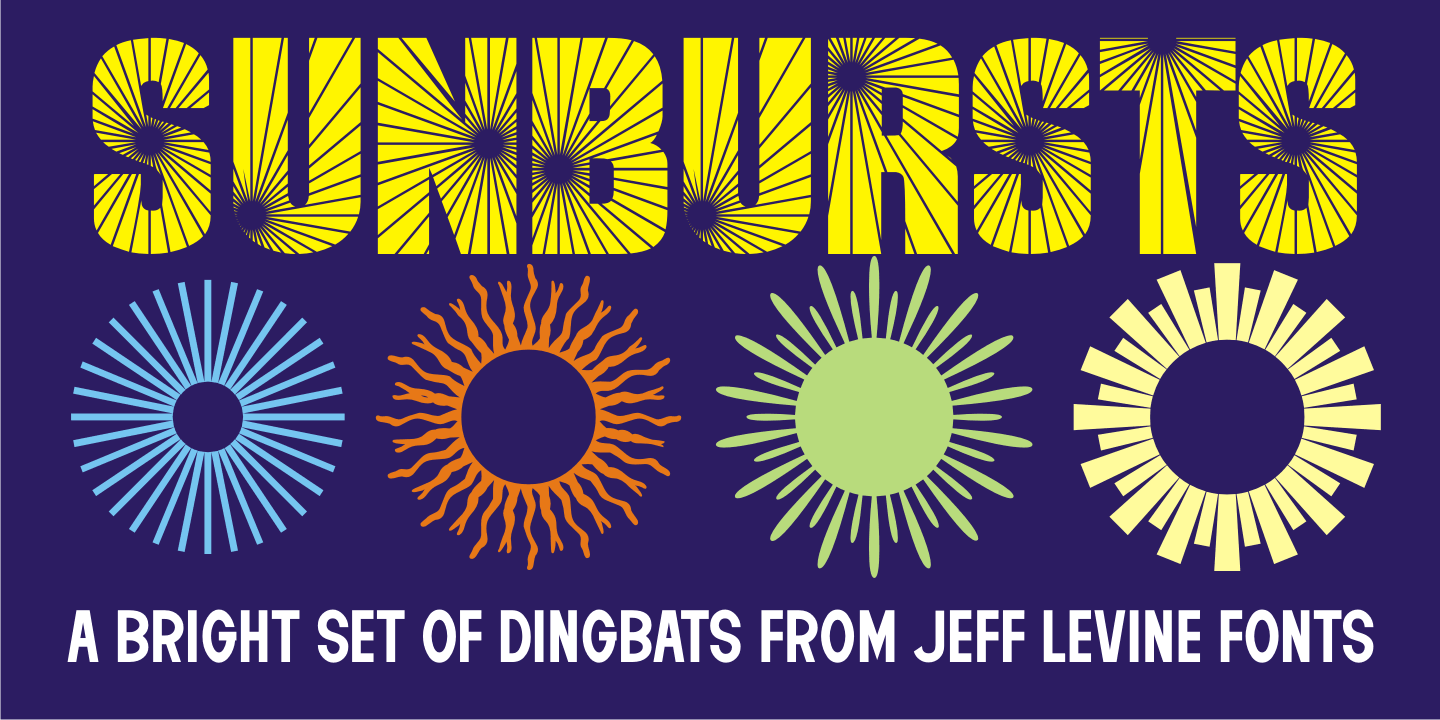
Sunbursts JNL is a dingbat font published by Jeff Levine Fonts.
Sunbursts JNL is a simple little collection of sun dingbats for all types of creative embellishment. Make sure to use them with the recommended SPF-rated sunblock!